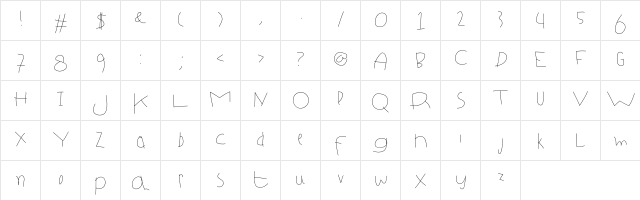
homework preschooler Regular Font Preview
homework preschooler Regular
Design Context for homework preschooler Typeface
homework preschooler is a composed and adaptable typeface that performs quietly and consistently across a wide range of design contexts.
Pro Tip: Use homework preschooler in both headline and body roles to test its range before committing to a single application.